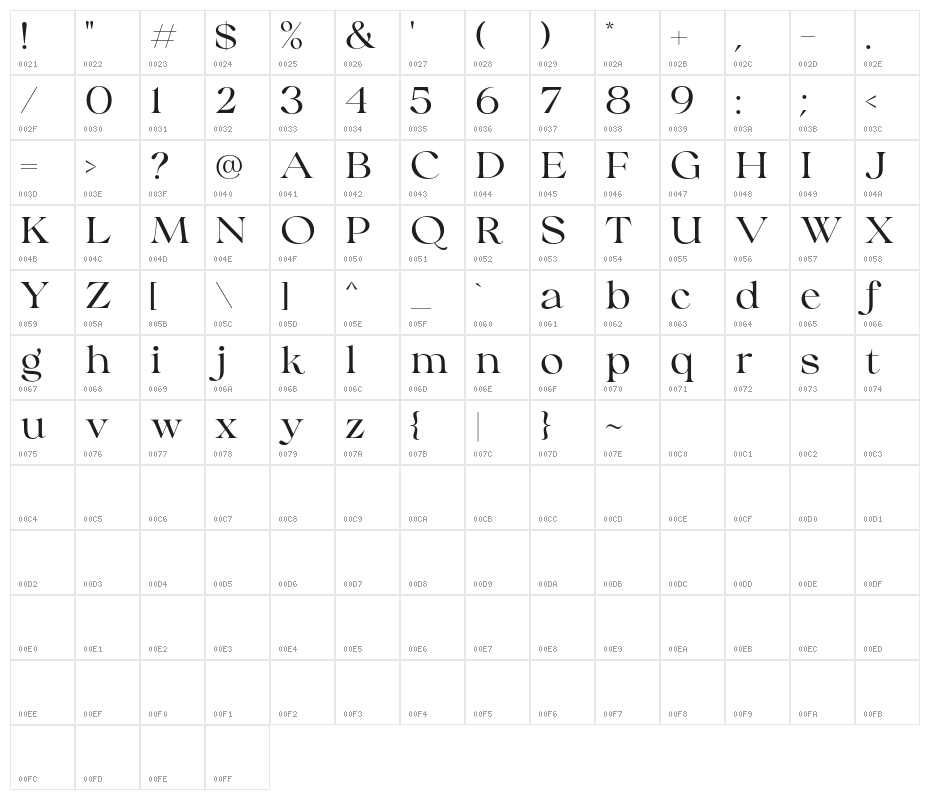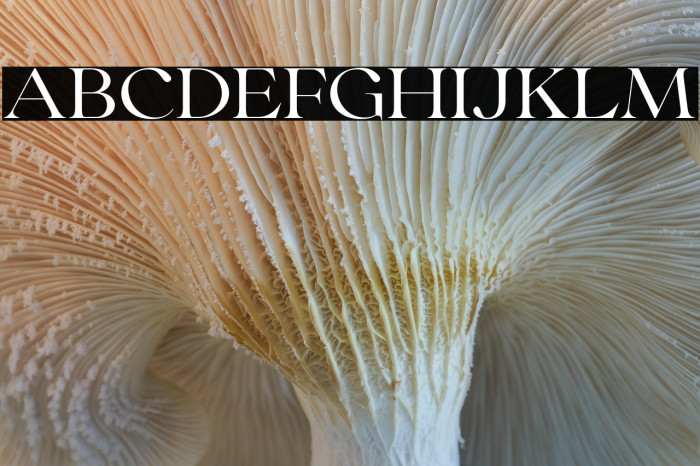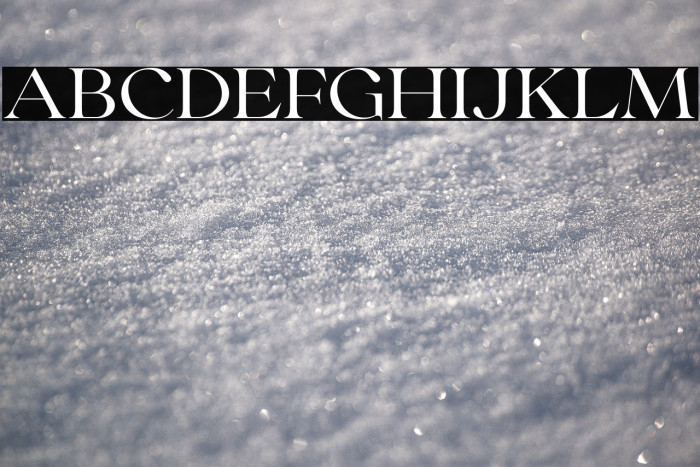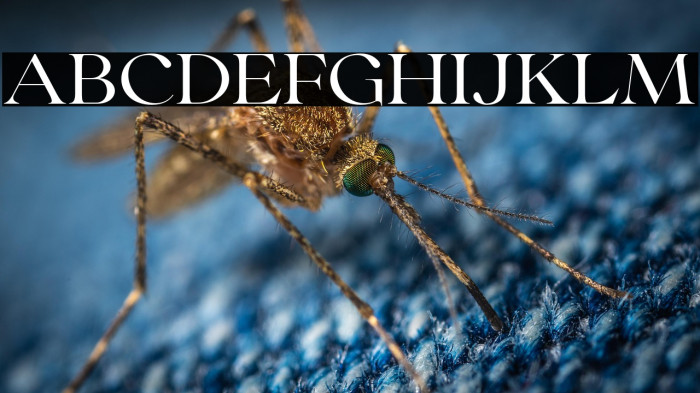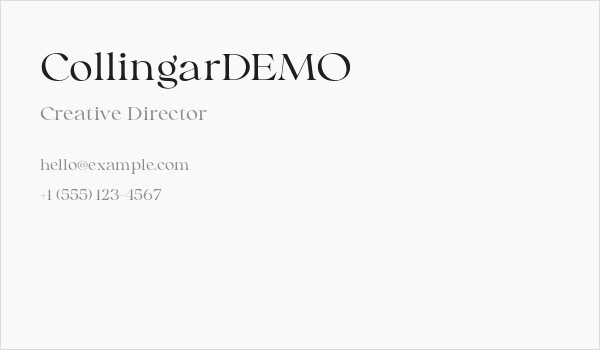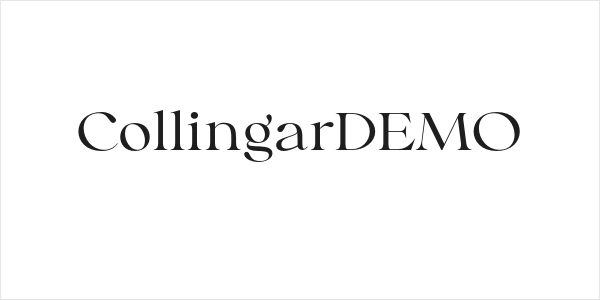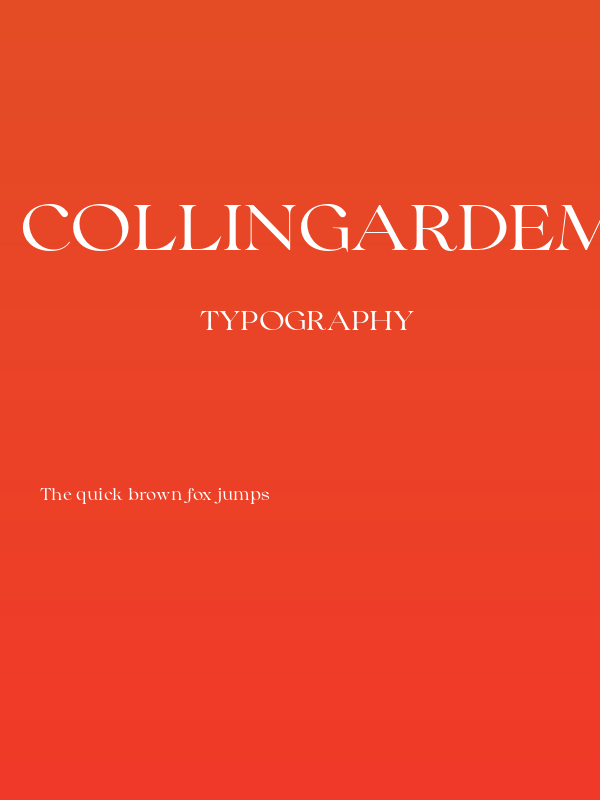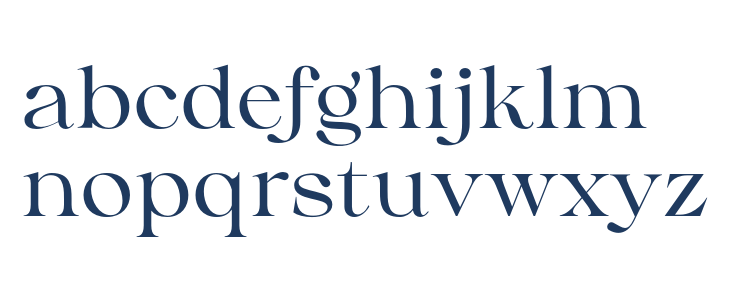
CollingarDEMO Font
CollingarDEMO Description
This font exudes a classic elegance with its high contrast between thick and thin strokes, characteristic of a serif typeface. The serifs are sharp and pronounced, giving the letters a sophisticated and timeless appearance. The uppercase letters are tall and stately, while the lowercase letters maintain a harmonious balance with a slightly rounded form. The numerals are consistent with the overall style, featuring similar stroke contrasts and serif details. Special characters are well-integrated, maintaining the font's refined aesthetic. This font is ideal for projects that require a touch of class and tradition.
| Overall Style | Classic |
| Use Case | Headlines, Body text, Logos |
| Proposed Projects | Ideal for book covers, formal invitations, branding for luxury products, and editorial design. |